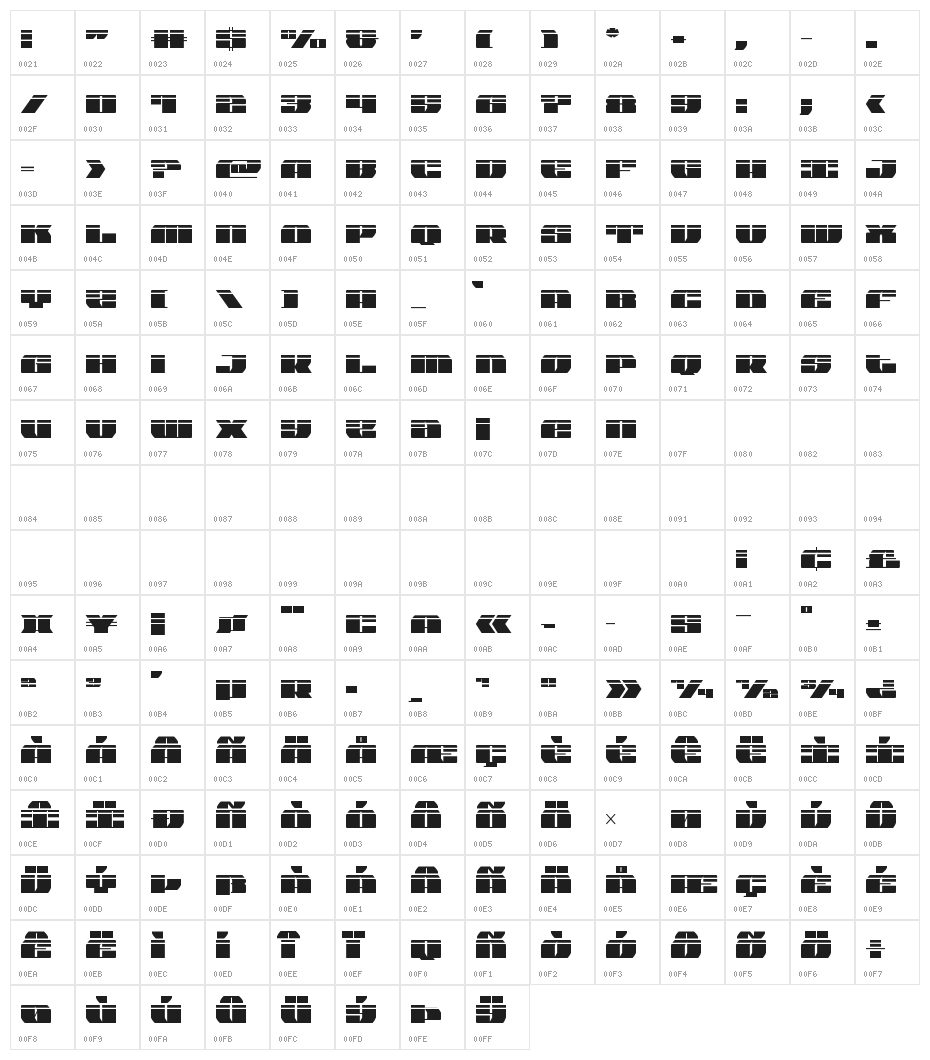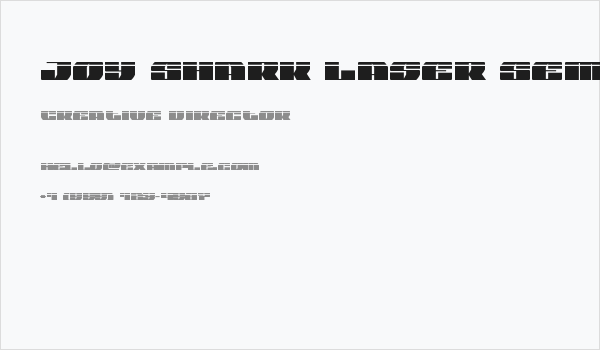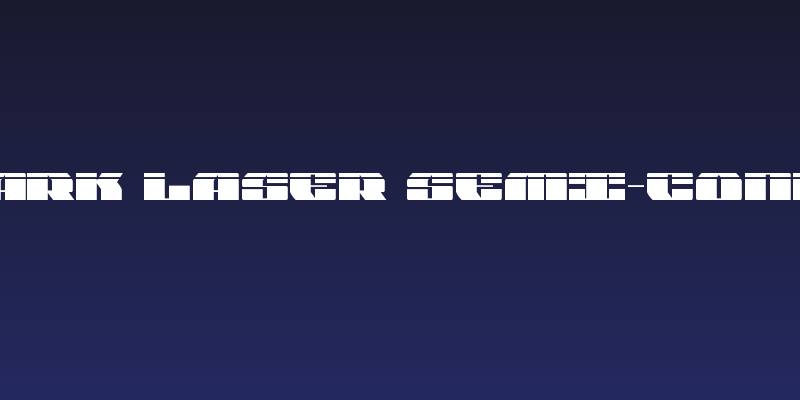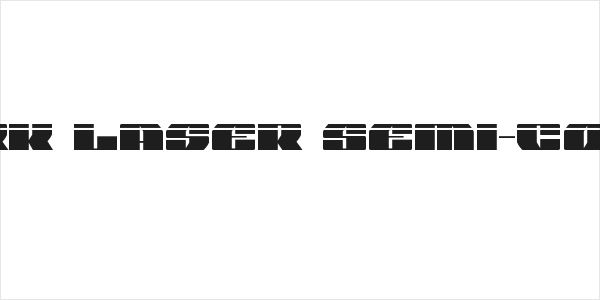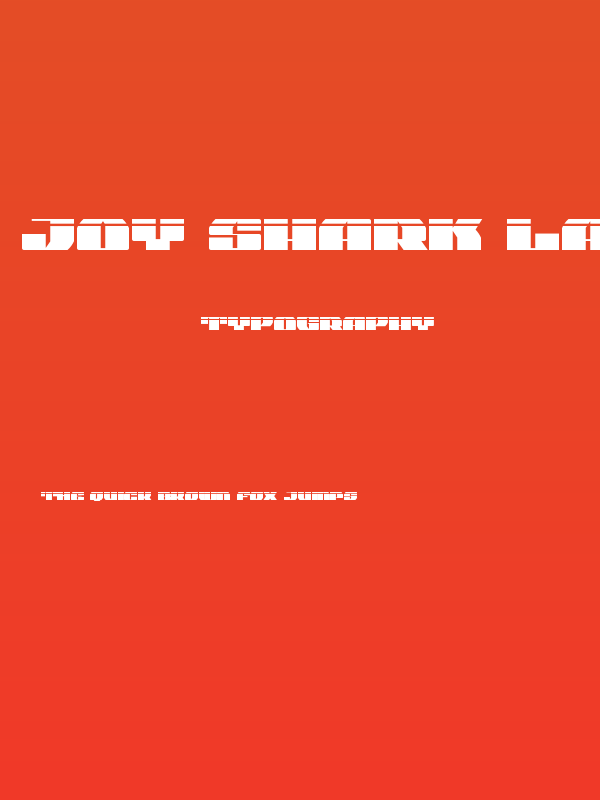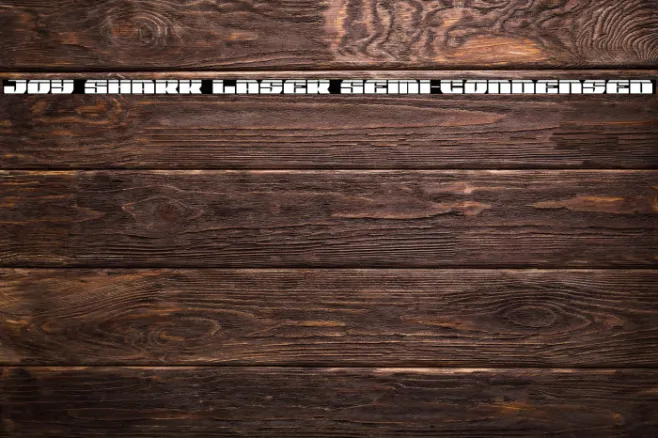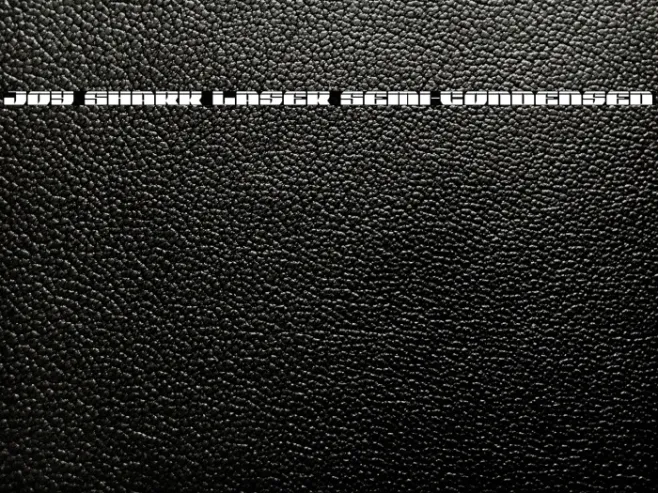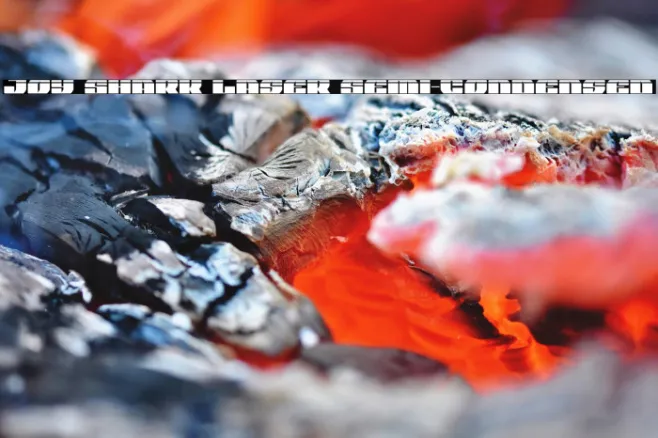
Joy Shark Laser Semi-Condensed Font
Joy Shark Laser Semi-Condensed Description
This font features a bold and futuristic design with a semi-condensed structure. The characters are constructed with sharp, angular edges and a stencil-like appearance, giving it a modern and industrial feel. The uppercase and lowercase letters maintain a consistent style, with the uppercase being slightly more pronounced. Numbers and special characters follow the same design principles, ensuring uniformity across all glyphs. The font's geometric shapes and solid forms make it highly legible while maintaining a distinctive and edgy look.
| Proposed Projects | Ideal for technology-themed projects, sci-fi movie posters, video game titles, and branding for tech companies. |